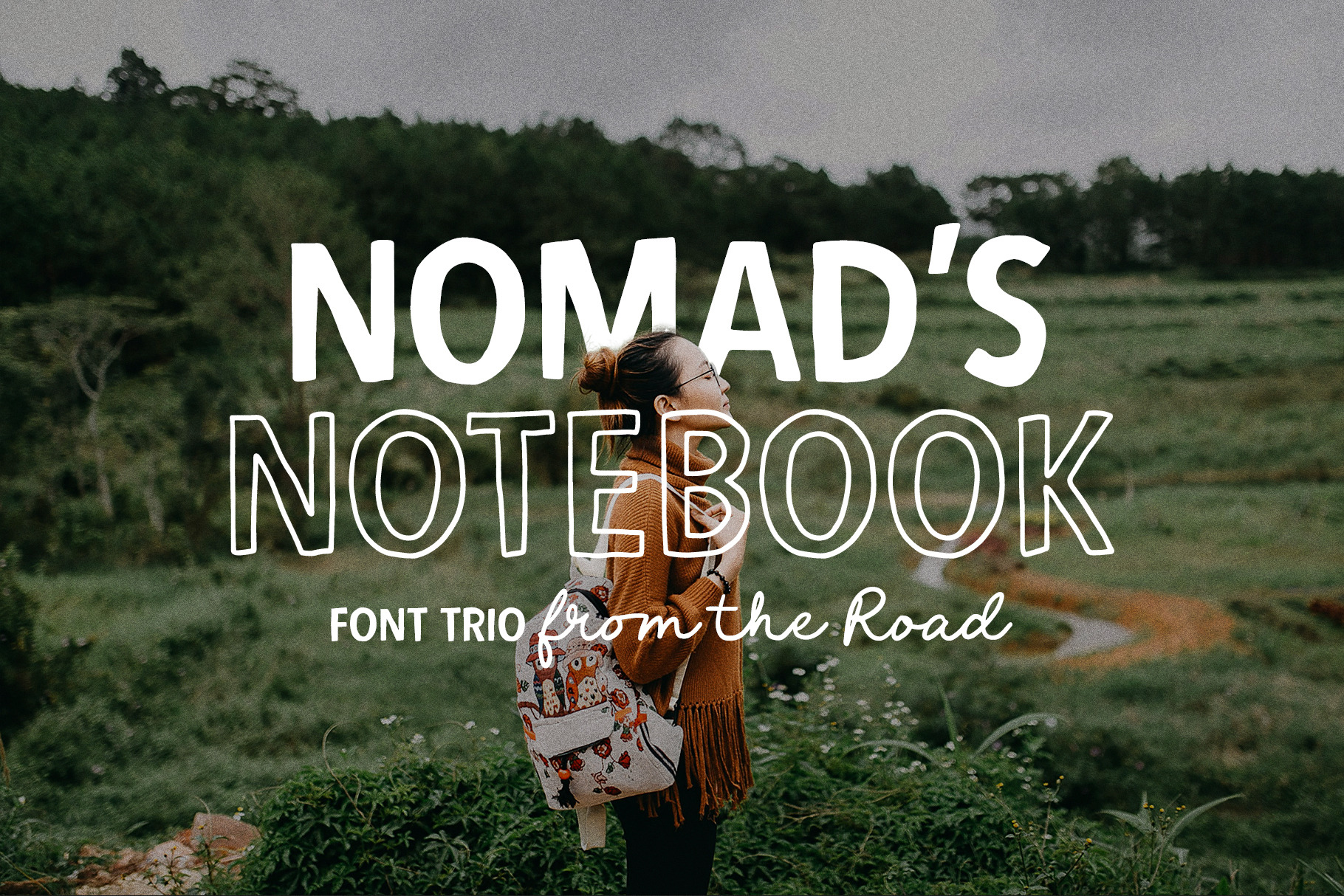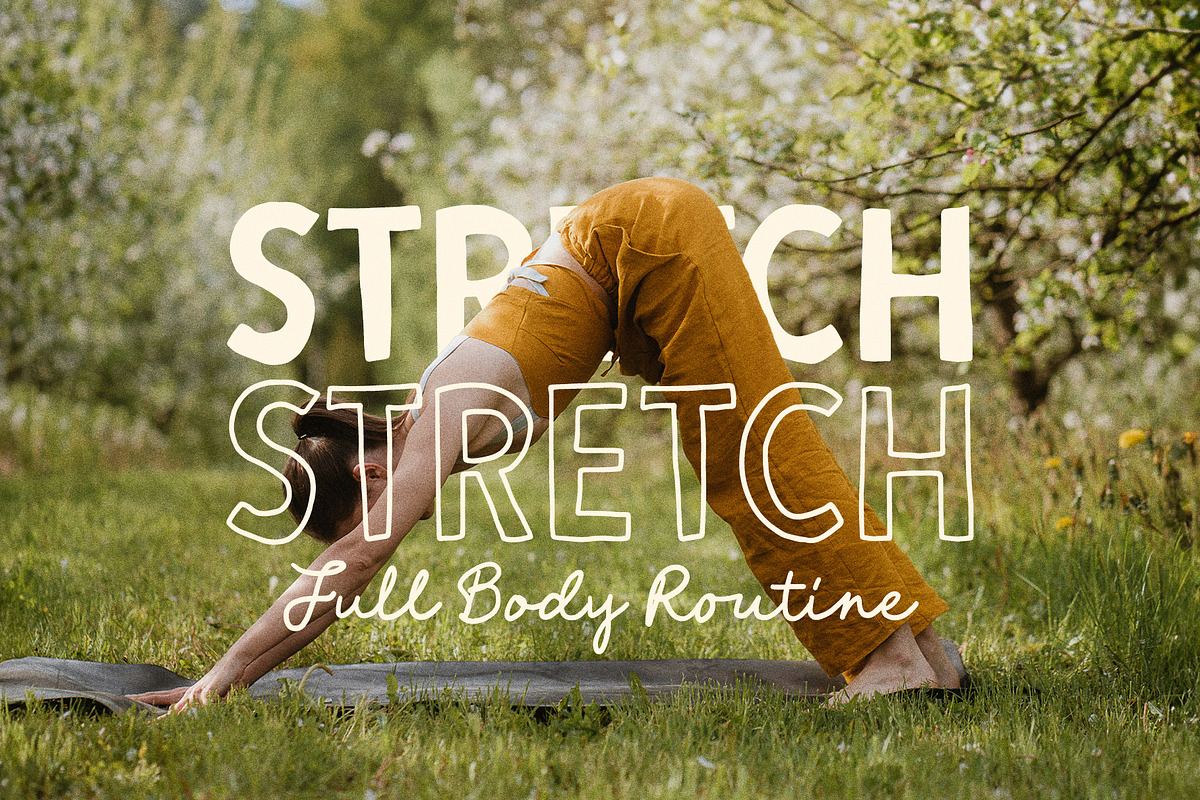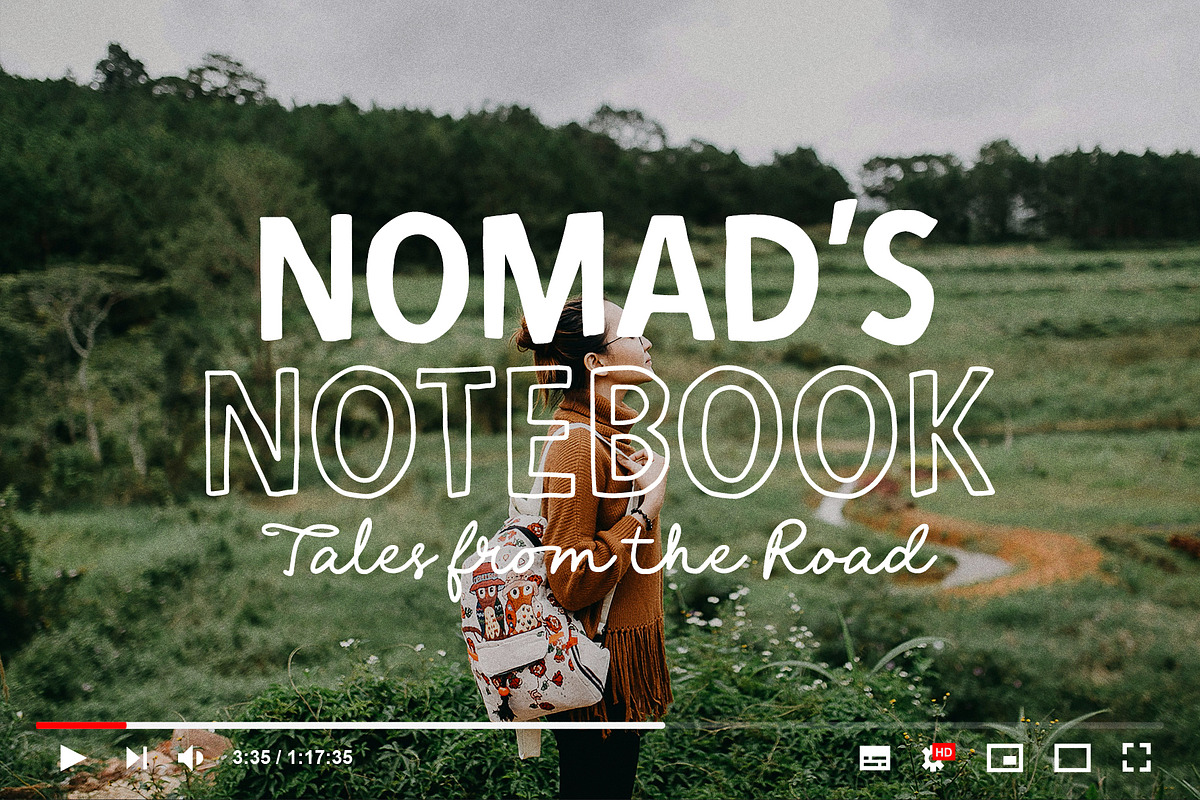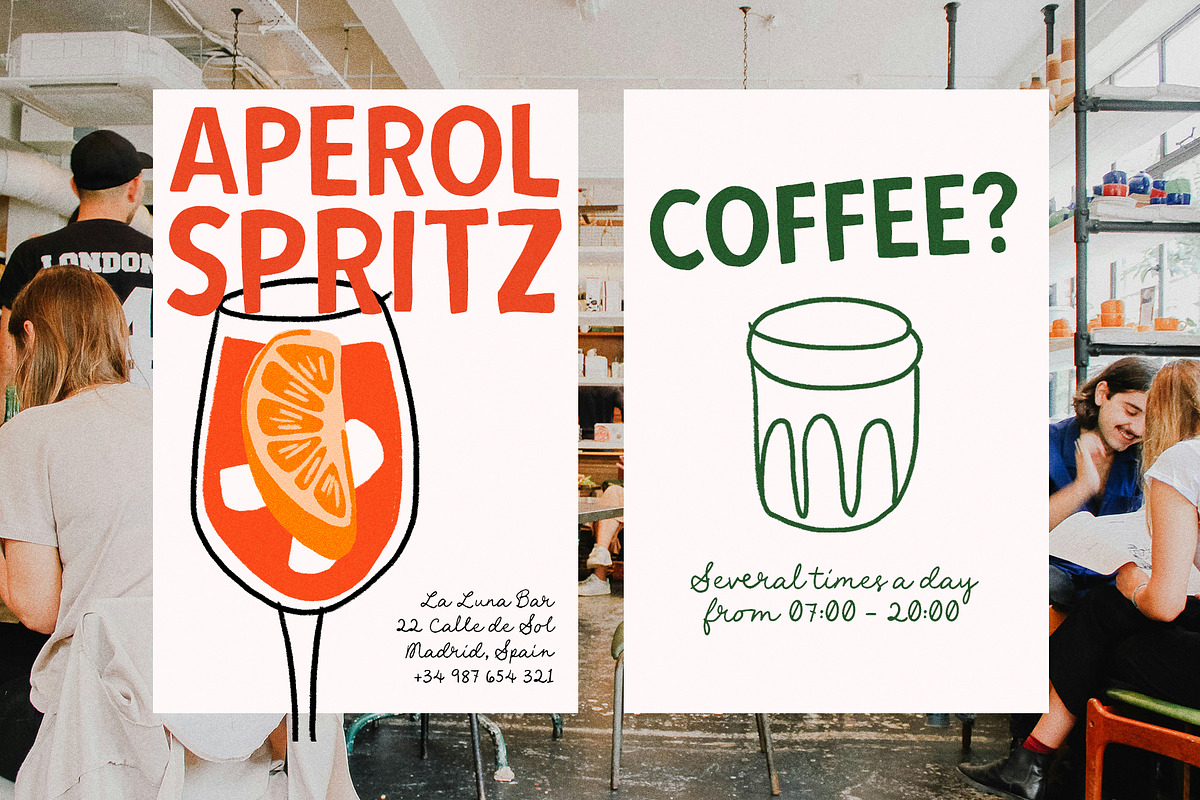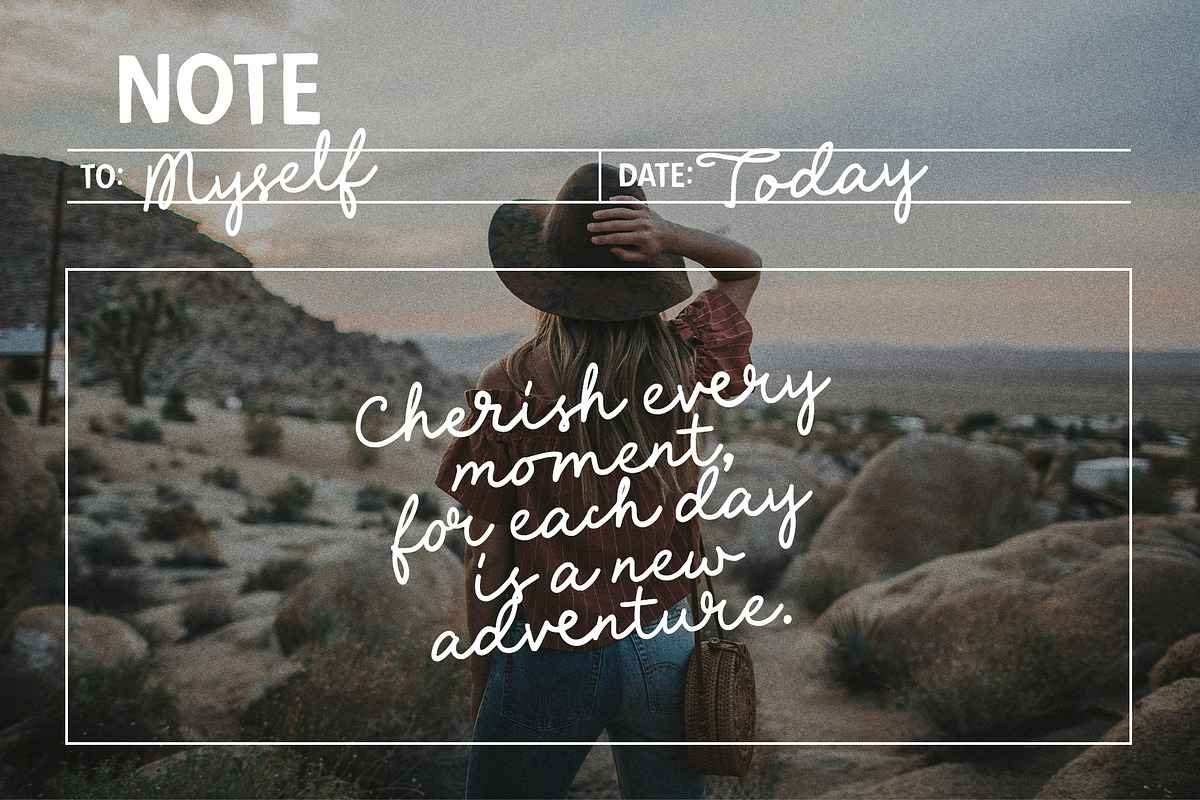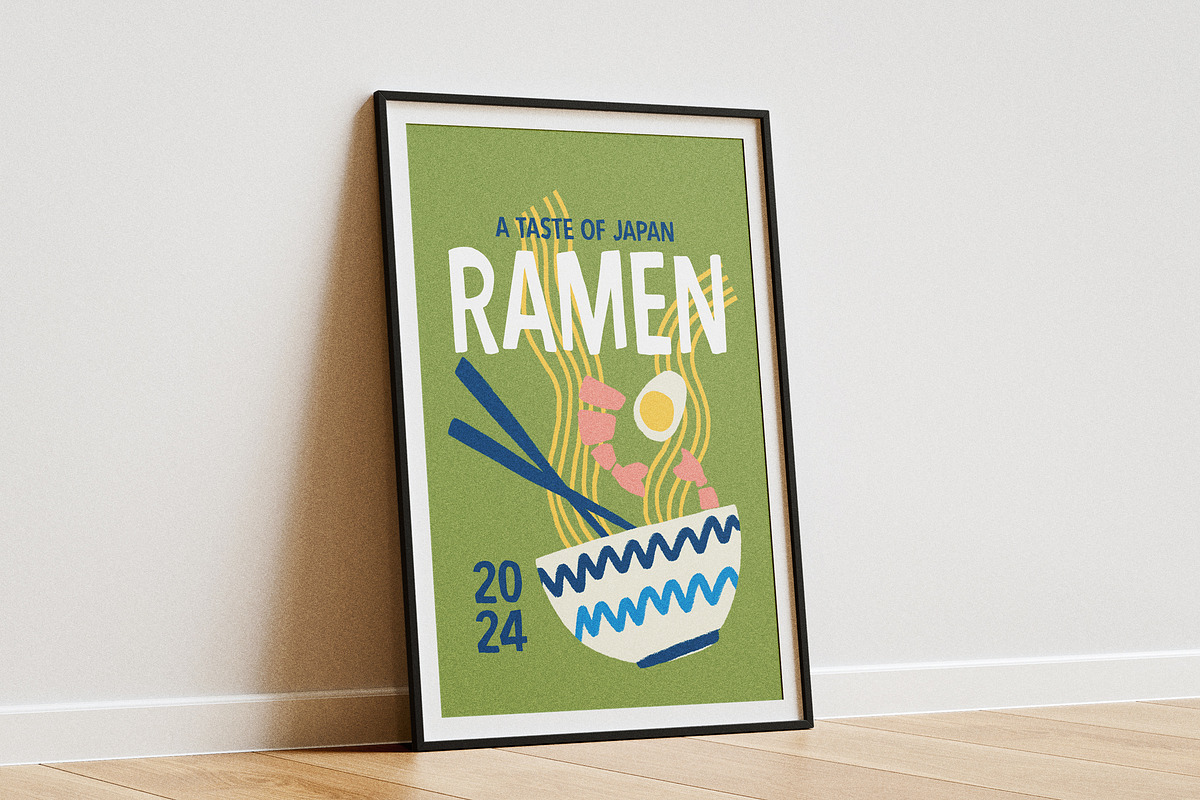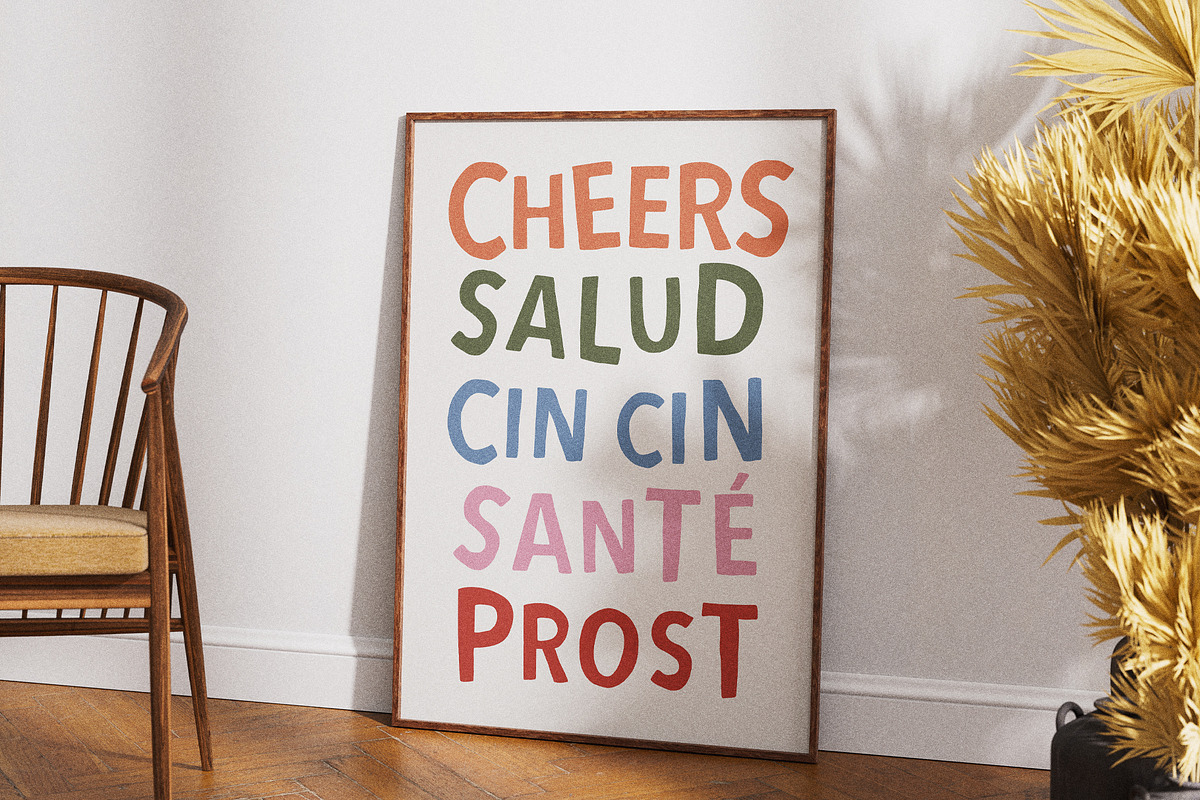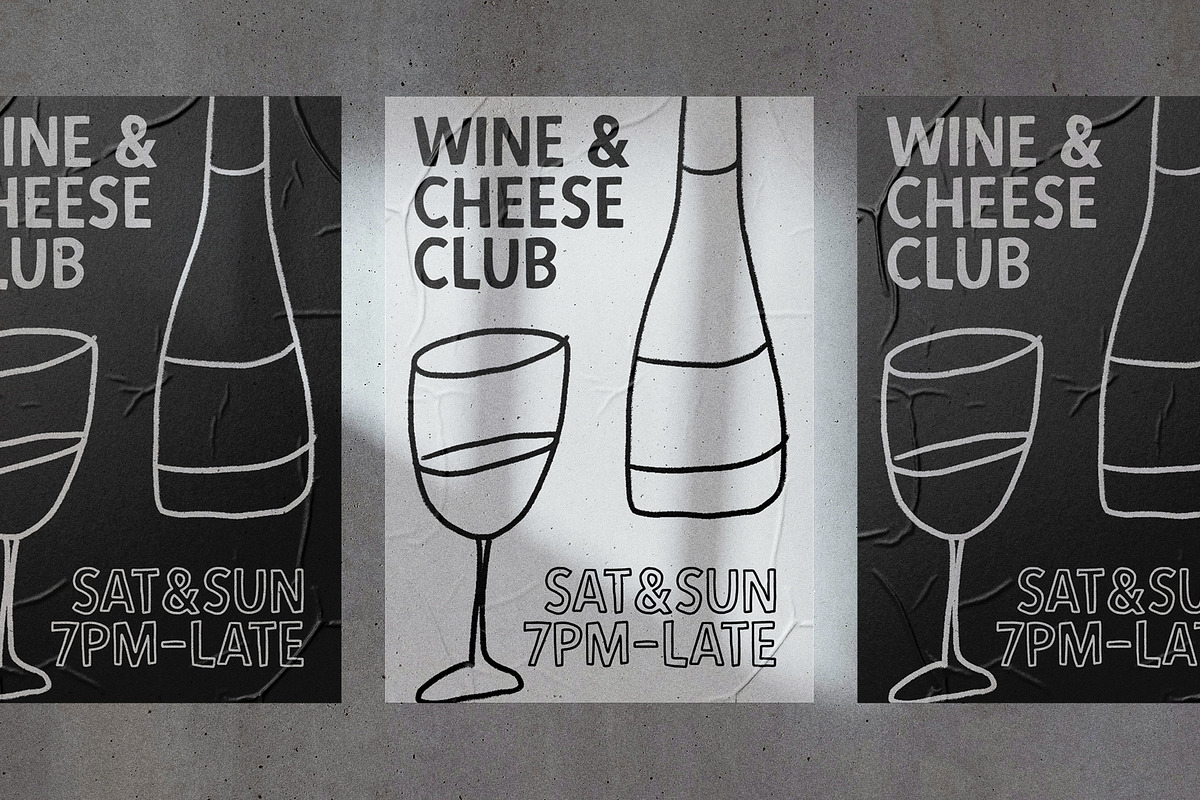
Nomads Notebook Fun Font Trio
Explore Nomads Notebook! A delightful, hand-drawn font family made with love just for you. With 3 distinctive styles, it helps you effortlessly add creativity and personality to any project. From modern invitations to unique posters and stylish stationery, Rosey Charm is your go-to toolkit for all design needs.
- Nomads Notebook Script
- Nomads Notebook Sans
- Nomads Notebook Outline Sans